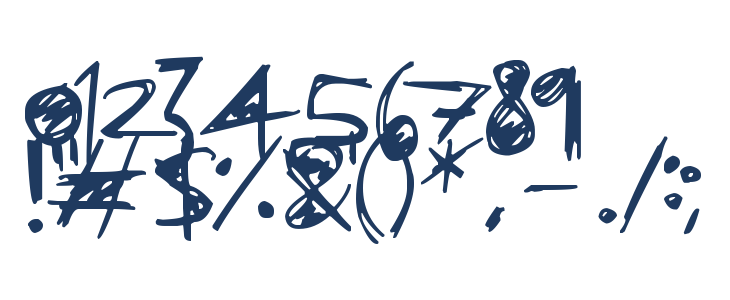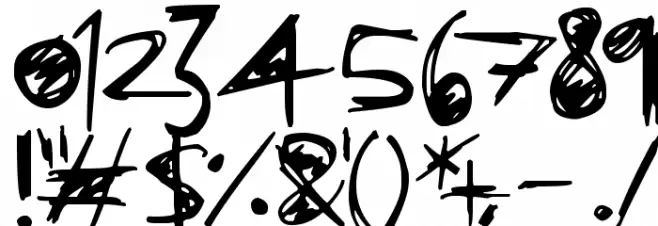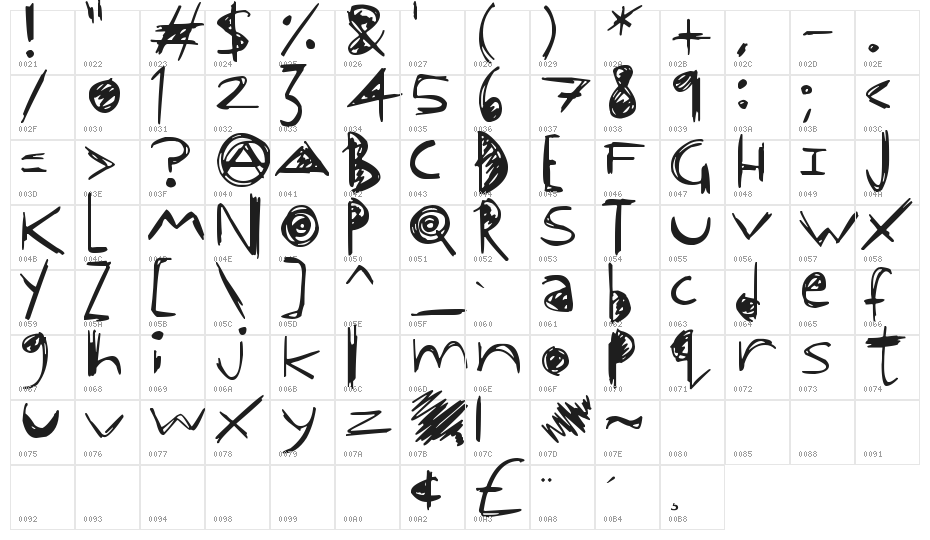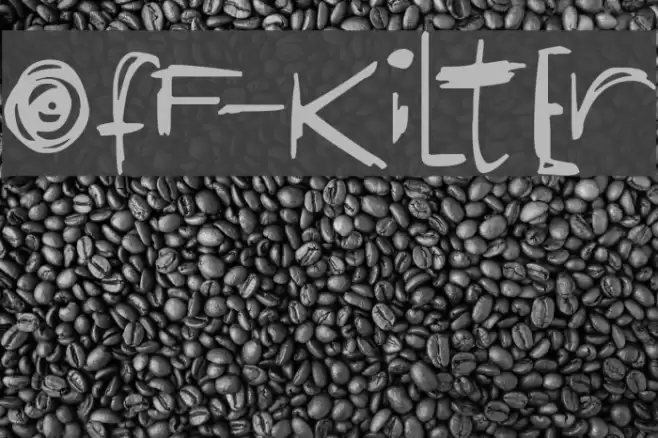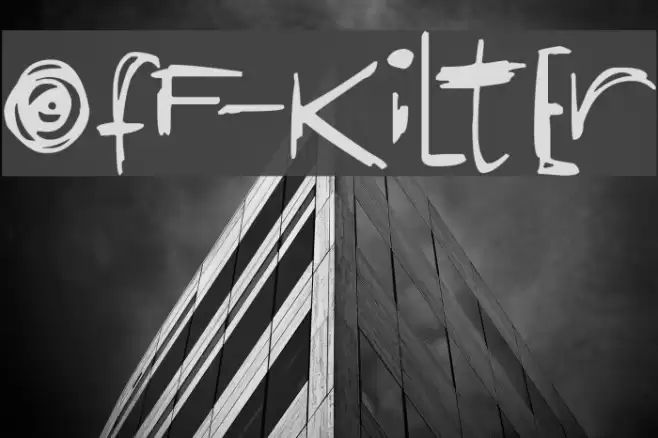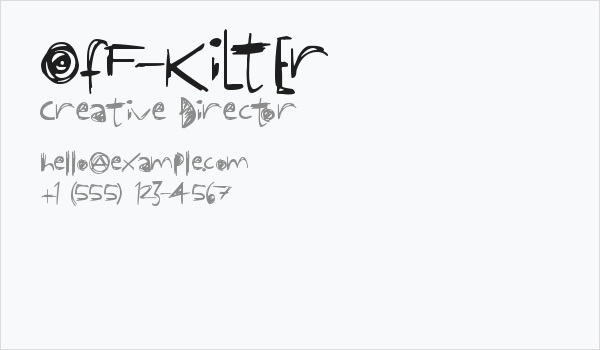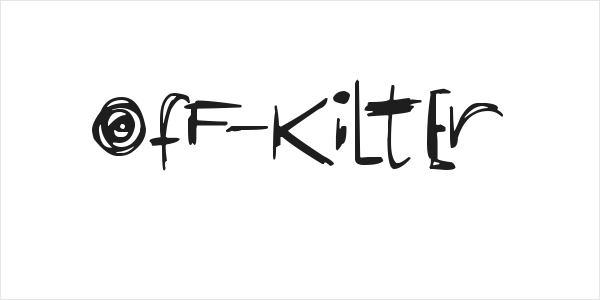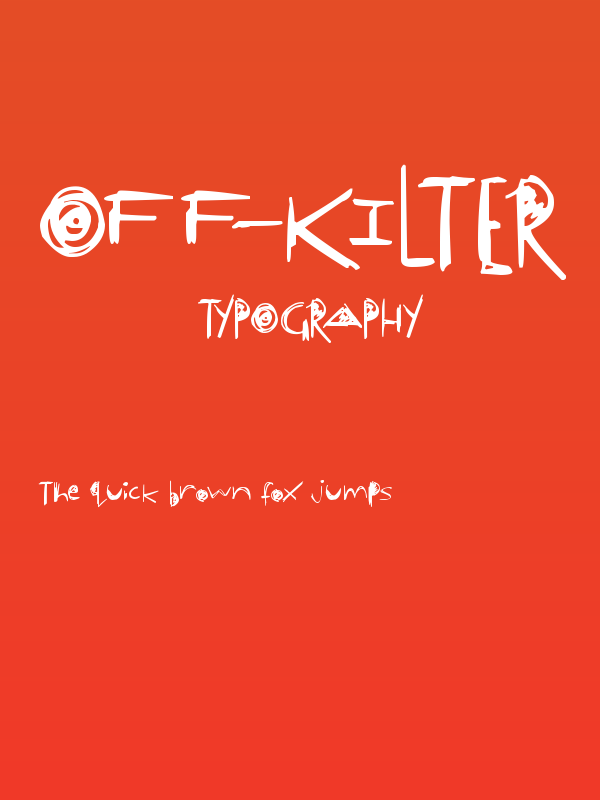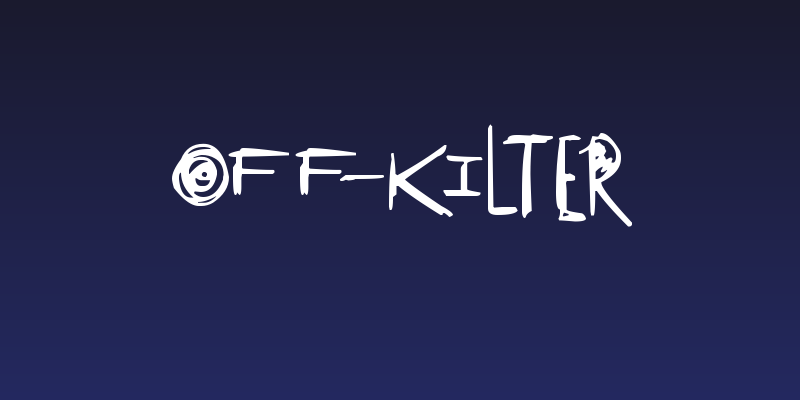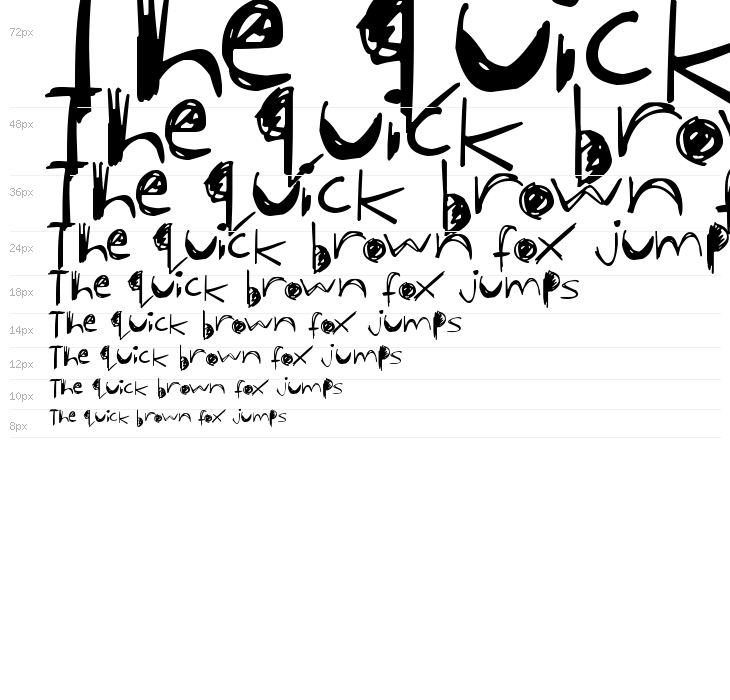
OfF-KiLtEr Font
OfF-KiLtEr Description
This font features a playful and chaotic design, characterized by its uneven strokes and quirky, hand-drawn appearance. The letters exhibit a mix of sharp angles and rounded edges, creating a dynamic and energetic feel. Each character is unique, with varying thicknesses and unexpected twists, giving the font a distinctly offbeat and artistic vibe. The uppercase and lowercase letters maintain this whimsical style, while the numbers and special characters continue the theme with their own irregularities. This font's unconventional style makes it stand out, perfect for projects that require a bold and creative touch.
| Proposed Projects | Ideal for creative projects such as posters, album covers, children's books, and artistic branding. |